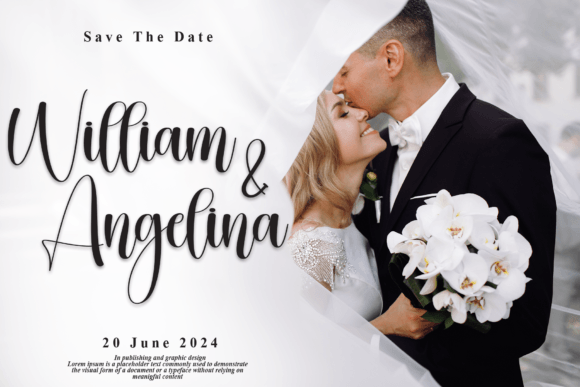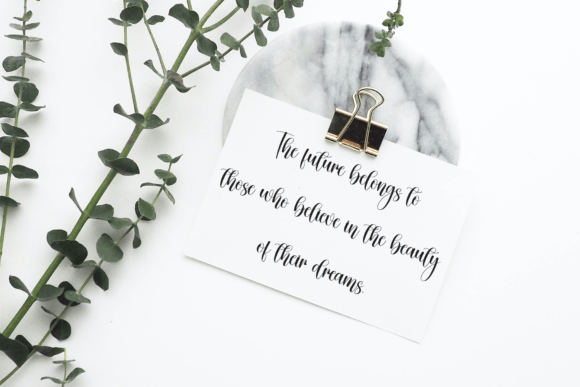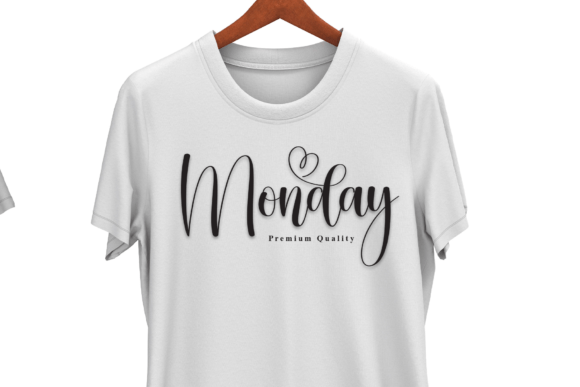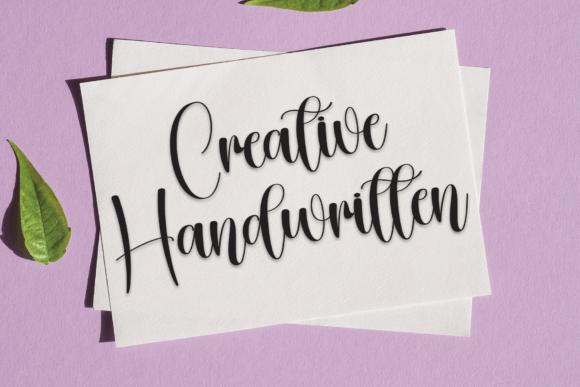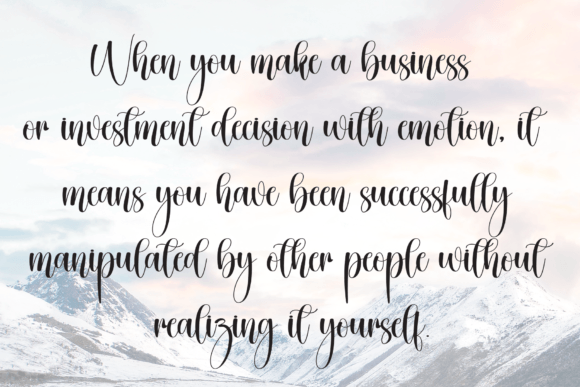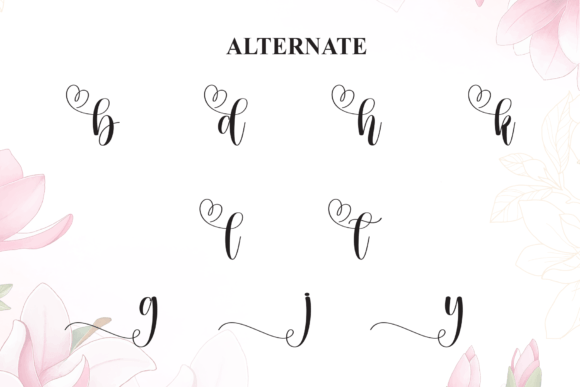
The Dearly Font: A Sweet and Friendly Companion for Your Designs
I’ll never forget the moment I stumbled upon the Dearly font. I was working on a project for a client’s wedding invitation, and I was struggling to find the perfect font that would capture the sweet and intimate atmosphere of the event. The client wanted something that felt personal, yet elegant. As I scrolled through my font library, I stumbled upon Dearly, and it was love at first sight! 💕
The natural and unique style of Dearly immediately caught my attention. Its handwritten charm and friendly vibe made it incredibly fitting for a wide range of designs. From wedding invitations to branding, packaging, and even digital platforms, Dearly proved to be an incredibly versatile font.
- ✅ Unique and natural handwritten style
- ✅ Friendly and approachable vibe
- ✅ Highly versatile and adaptable to various design projects
- ✅ Easy to read and understand, even in smaller sizes
- ⚠️ Some letters may appear a bit inconsistent in size, which can be a minor issue for certain design applications
- ⚠️ Limited availability of language support, which might be a concern for projects requiring multiple languages
The Story Behind Dearly: A Designer Inspiration
Dearly was designed with the intention of creating a font that would bring a sense of warmth and friendliness to any design project. The designer aimed to craft a font that felt approachable, yet elegant, making it perfect for a wide range of applications.
Q: What makes Dearly a great choice for wedding designs?
A: Dearly’s sweet and intimate style makes it an excellent choice for wedding invitations, save-the-dates, and other wedding-related designs.
Q: Is Dearly suitable for digital platforms?
A: Absolutely! Dearly’s clear and readable style makes it perfect for digital applications, such as website headers, social media graphics, and more.